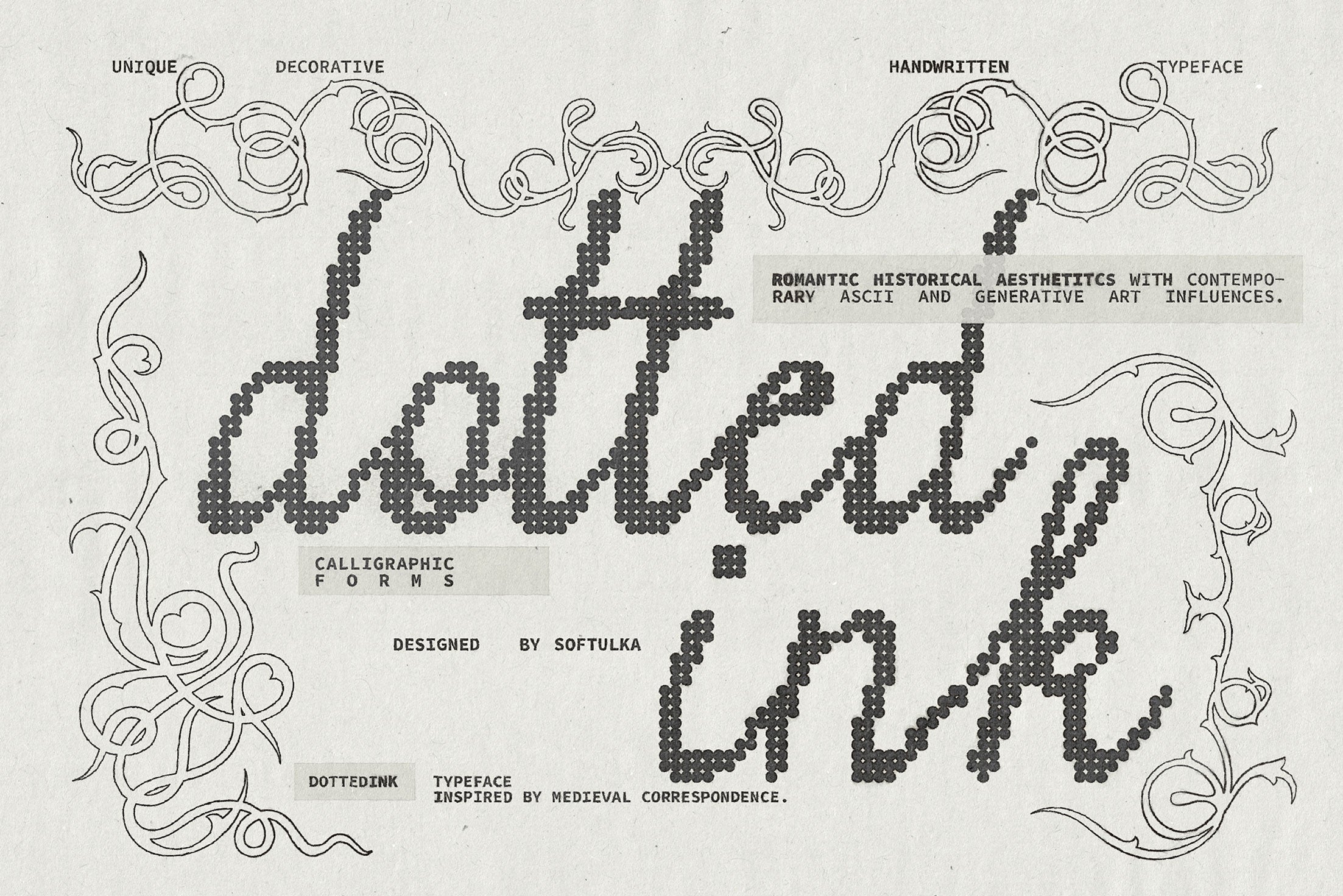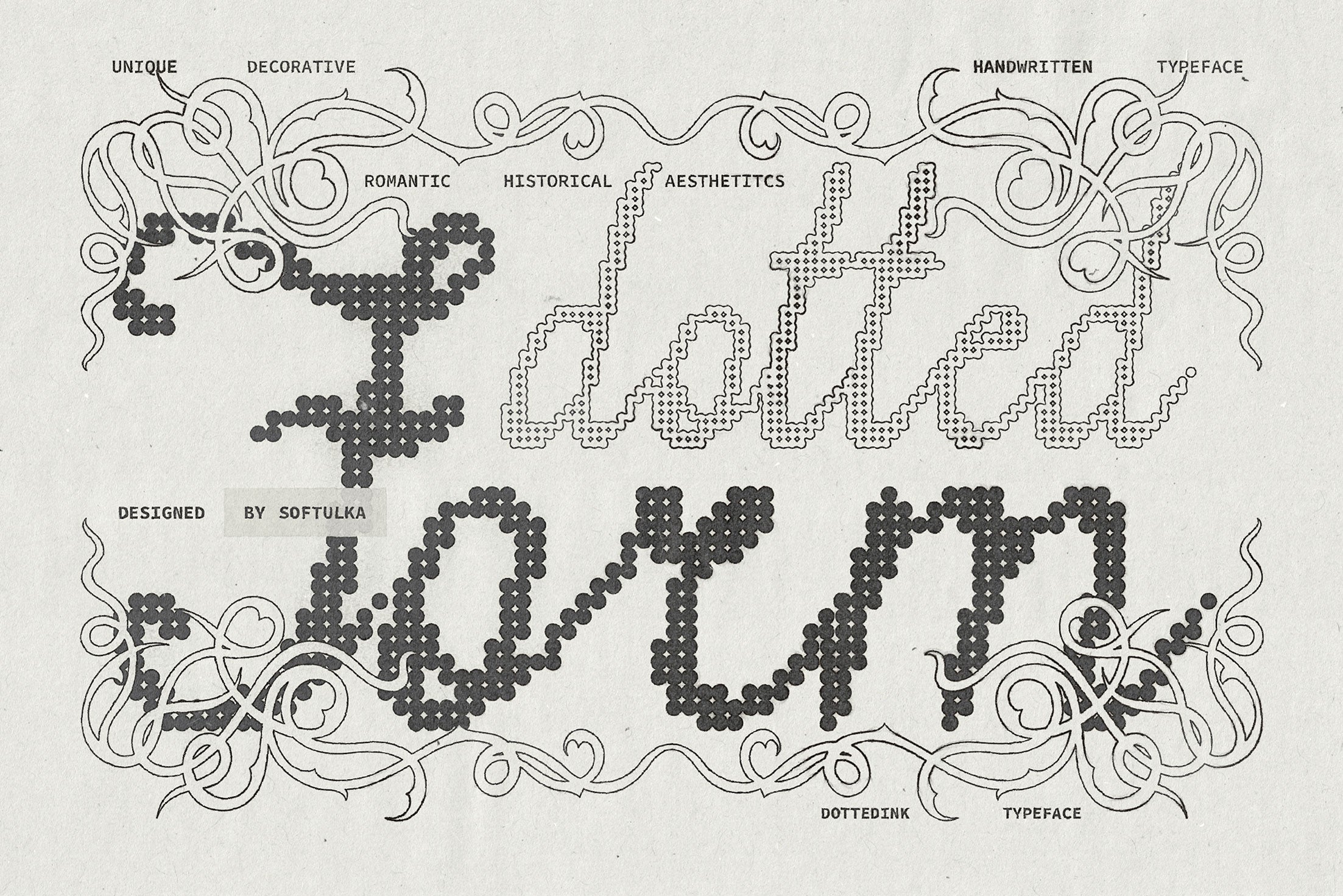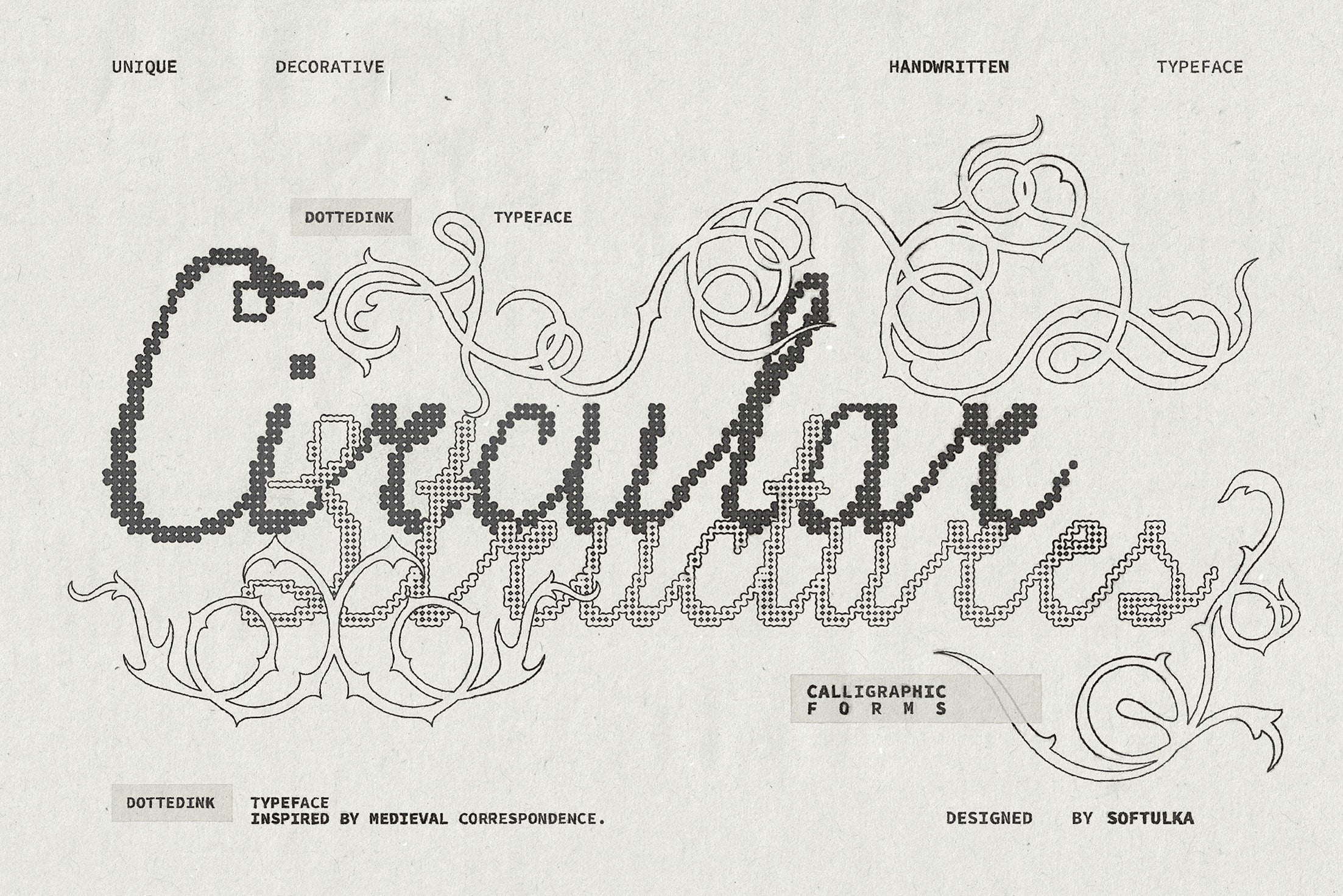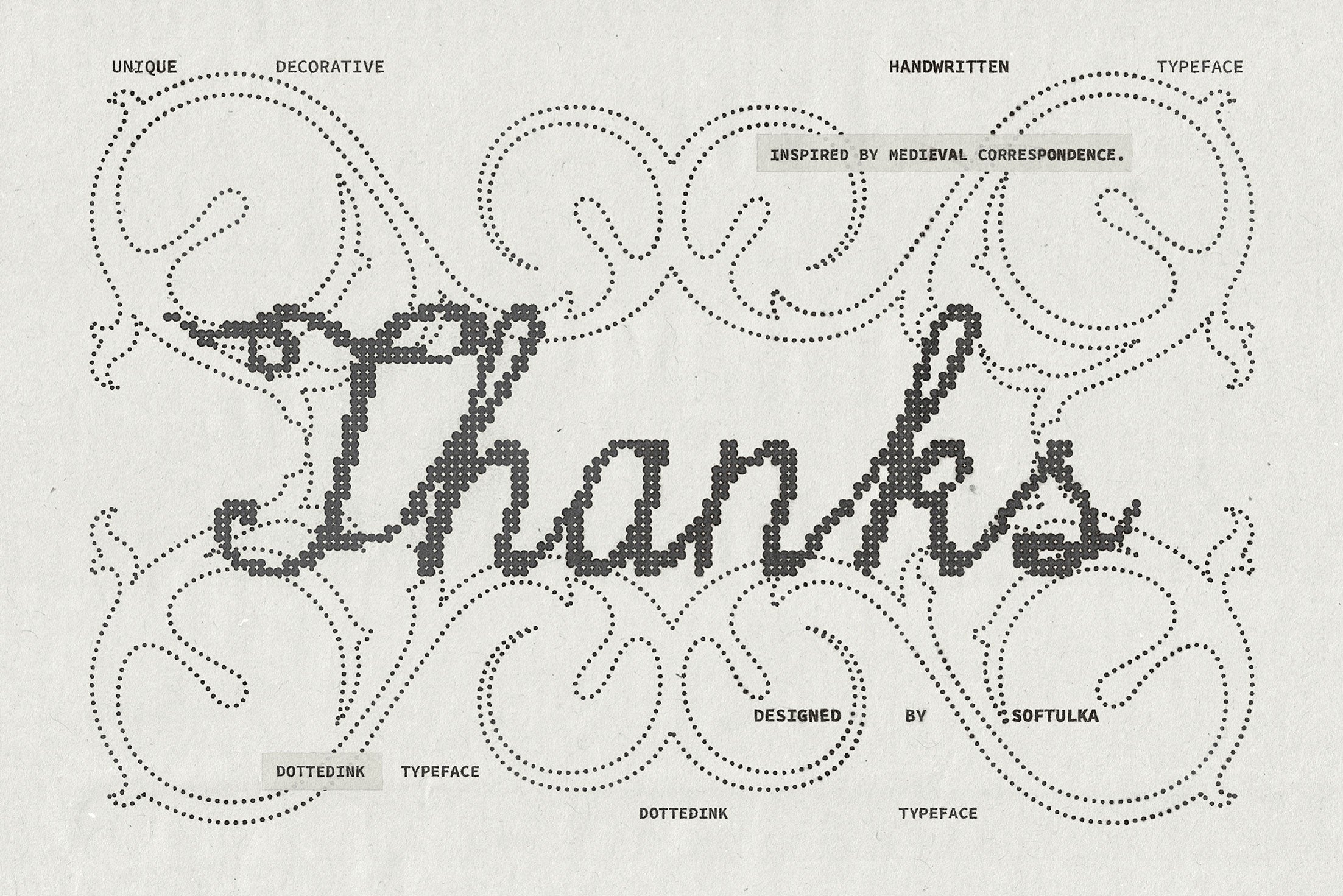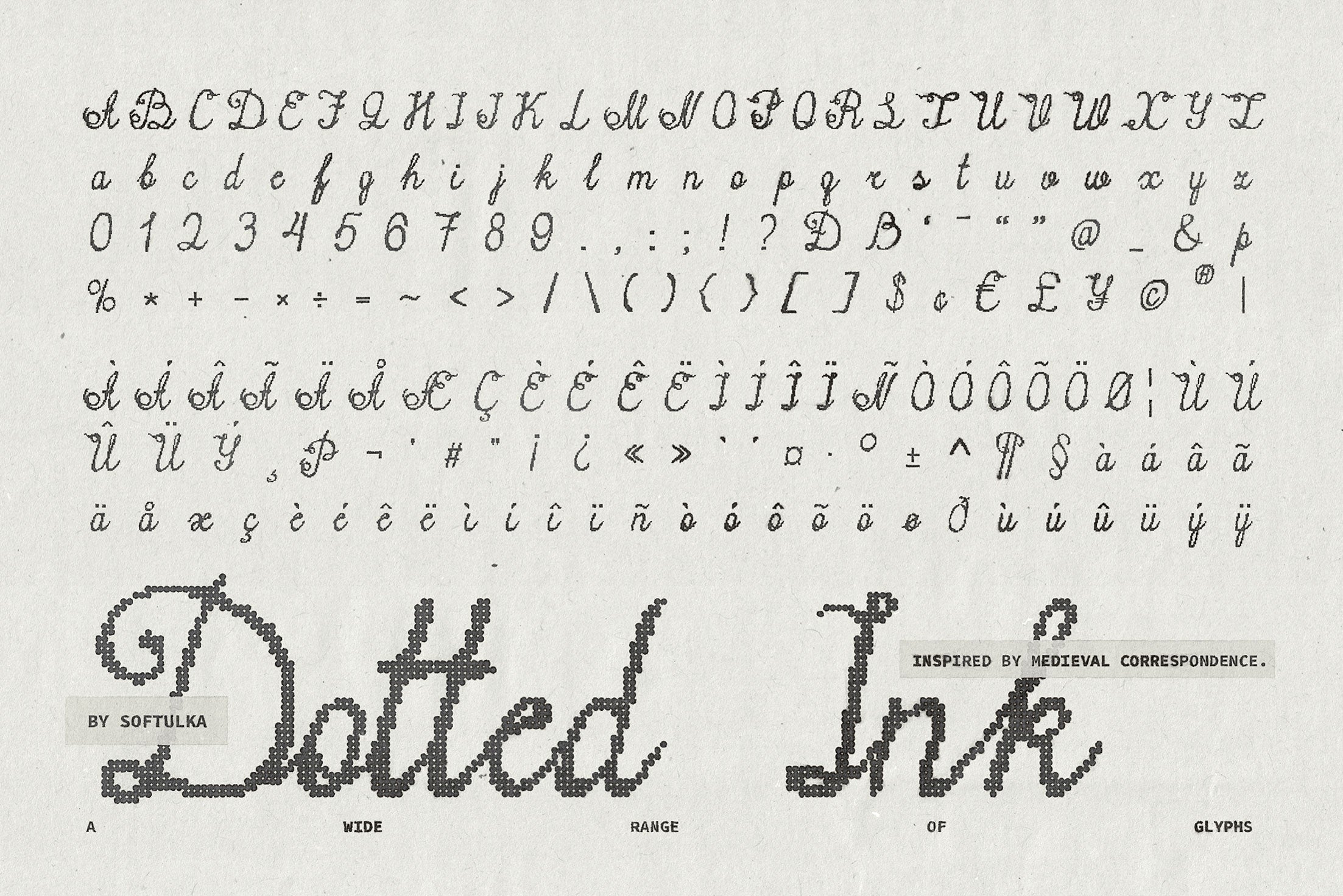
Dotted Ink Font
Dotted Ink is a decorative display typeface that reimagines historical calligraphy through a distinctly contemporary lens. Drawing inspiration from medieval correspondence, illuminated manuscripts, and ornamental handwriting, it transforms traditional letterforms into a unique system of dotted structures, circular geometry, and procedural-inspired details.
Balancing romantic craftsmanship with digital experimentation, Dotted Ink feels equally at home in ancient manuscripts and futuristic visual cultures. Its distinctive construction evokes everything from hand-placed ink marks and decorative script traditions to ASCII art, generative graphics, and computational aesthetics. The result is a typeface that feels timeless yet unconventional, familiar yet entirely original.
Designed for creatives seeking expressive typography, Dotted Ink excels in branding, book covers, editorial design, packaging, invitations, fantasy worlds, music artwork, and artistic visual identities. Whether used for elegant headlines, atmospheric titles, or statement-making logos, it brings character, texture, and narrative depth to every composition.
• 192 Glyphs
• Lowercase
• Diacritics
• Symbols
• Currency
• Mathematics